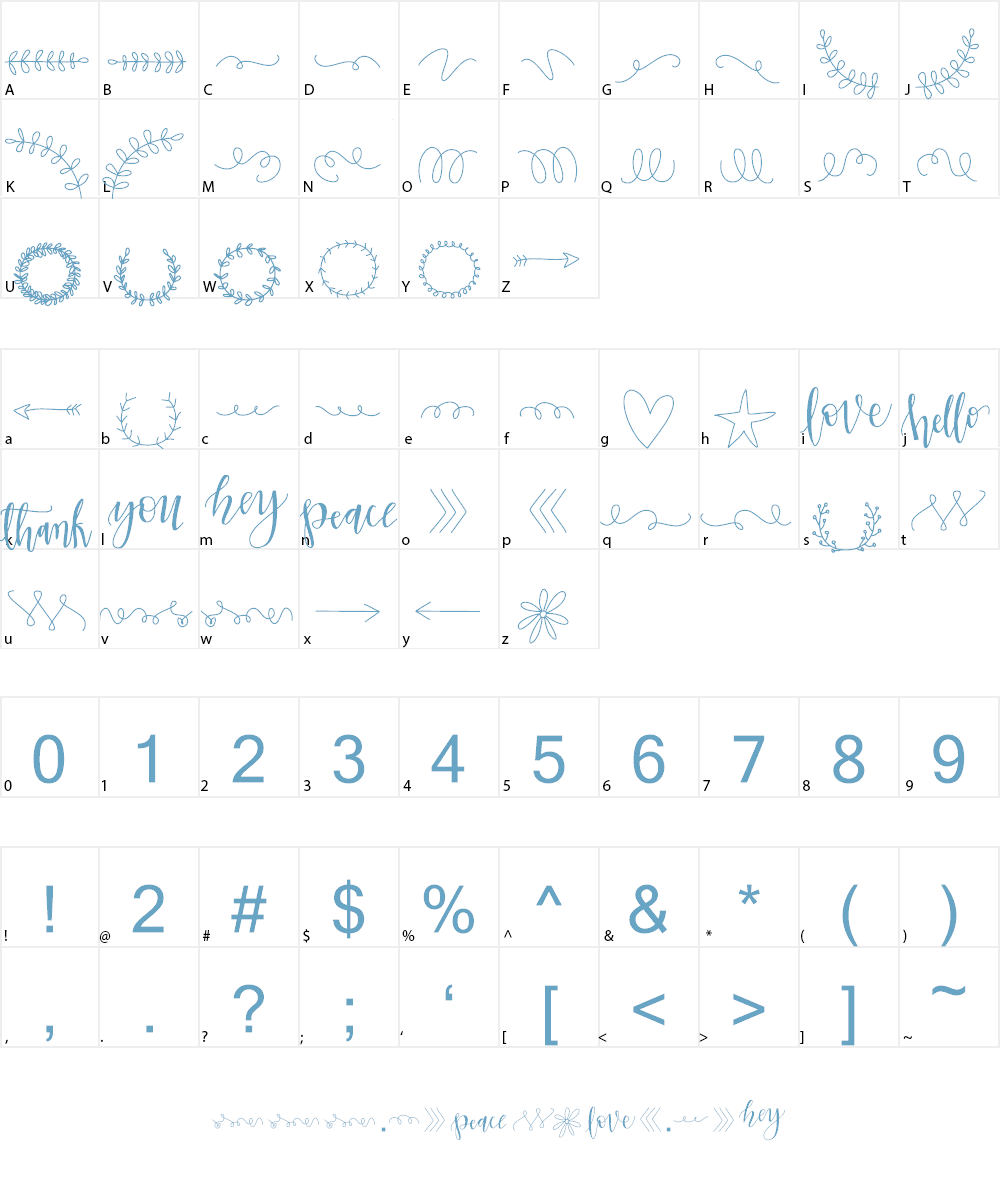
Poppy is a fun dingbat font consisting of 52 hand drawn glyphs!
It includes flourishes, words, wreaths, accents, and shapes to enhance the look of any project!